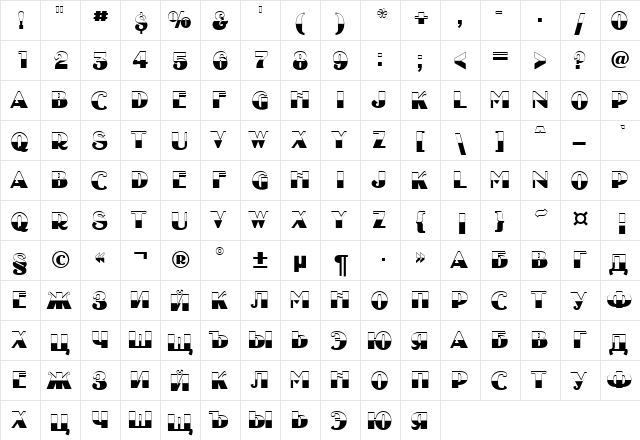
a_UncleyTitulB&W Bold
Design Context for a_UncleyTitulB&W Typeface
a_UncleyTitulB&W is a composed and adaptable typeface that performs quietly and consistently across a wide range of design contexts. The heavy weight commands attention and anchors typographic hierarchies.